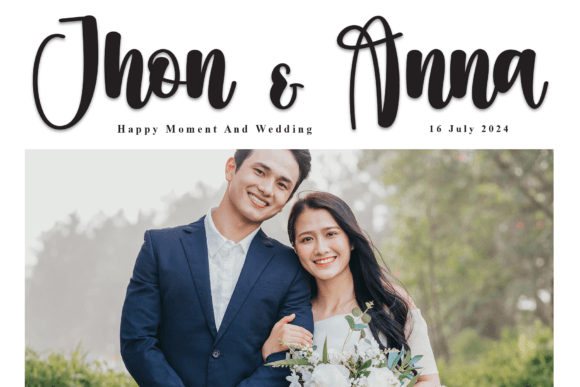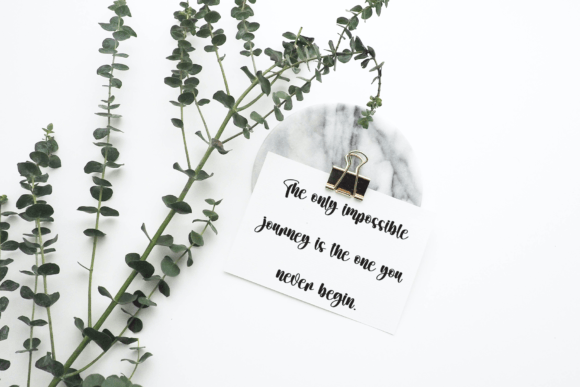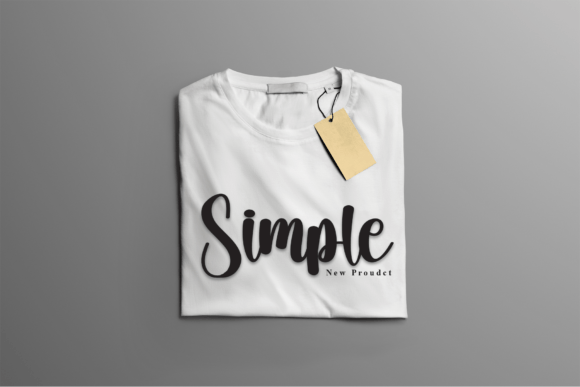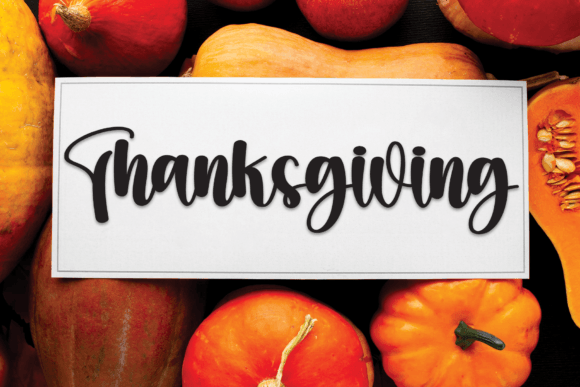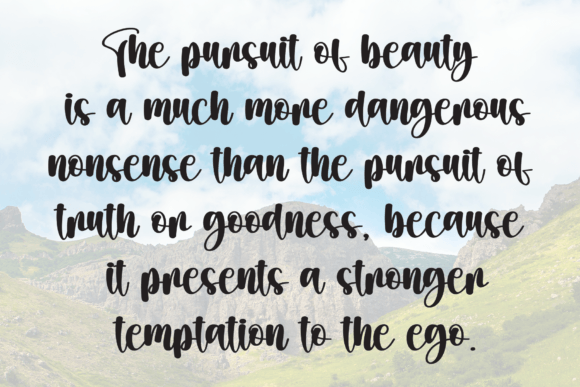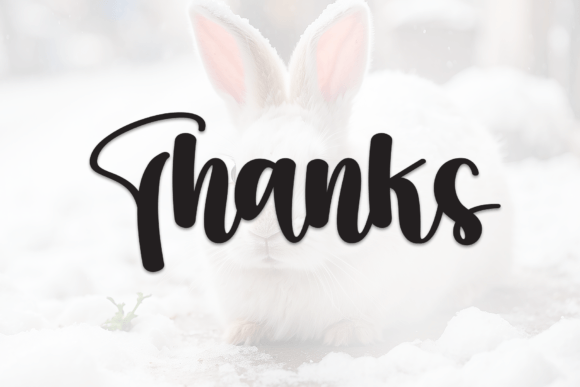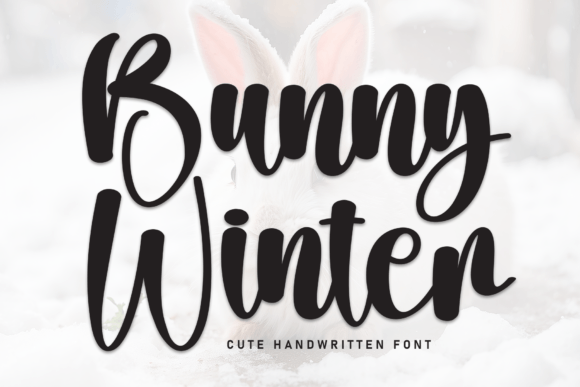
Bunny Winter Font: A Timeless Handwritten Font for Stunning Designs
Are you a designer or crafter looking for a font that can add a touch of elegance and whimsy to your creations? Look no further than the Bunny Winter Font! This lovely and timeless handwritten font is perfect for creating eye-catching logos, branding, and quotes that will leave a lasting impression on your audience.
What Makes Bunny Winter Font So Special?
Every letter in the Bunny Winter Font has a unique and beautiful touch that will make your design come alive! The font’s handwritten style gives it a personal and organic feel that is perfect for creating designs that are both modern and vintage. Whether you’re looking to create a logo, branding materials, or social media graphics, Bunny Winter Font is the perfect choice.
As a designer or crafter, you know how important it is to have a font that is versatile and easy to use. Bunny Winter Font is designed to be user-friendly and compatible with a variety of design software, making it easy to incorporate into your workflow. Whether you’re creating digital designs or printing physical materials, Bunny Winter Font will look great and add a touch of sophistication to your creations.
With Bunny Winter Font, the design possibilities are endless! Here are just a few ideas to get you started:
- Create eye-catching logos and branding materials that will help your business stand out
- Design beautiful quotes and social media graphics that will inspire and engage your audience
- Make stunning invitations, cards, and party decorations that will impress your friends and family
- Develop a cohesive brand identity with custom typography that reflects your unique style
Why Choose Bunny Winter Font?
So why choose Bunny Winter Font over other fonts on the market? Here are just a few reasons:
- Unique and Beautiful Design: Each letter in the Bunny Winter Font has a unique and beautiful design that will add a touch of elegance to your creations
- Timeless Style: The font’s handwritten style is timeless and versatile, making it perfect for a variety of design projects
- Easy to Use: Bunny Winter Font is designed to be user-friendly and compatible with a variety of design software
- Perfect for Branding: The font’s elegant and sophisticated design makes it perfect for creating logos, branding materials, and other marketing materials
Tips for Using Bunny Winter Font
Here are a few tips for getting the most out of Bunny Winter Font:
- Experiment with Different Sizes and Colors: Try out different sizes and colors to see what works best for your design
- Pair with Other Fonts: Bunny Winter Font pairs well with other fonts, so don’t be afraid to experiment with different combinations
- Use for Headings and Titles: The font’s elegant design makes it perfect for headings and titles, so use it to add a touch of sophistication to your designs